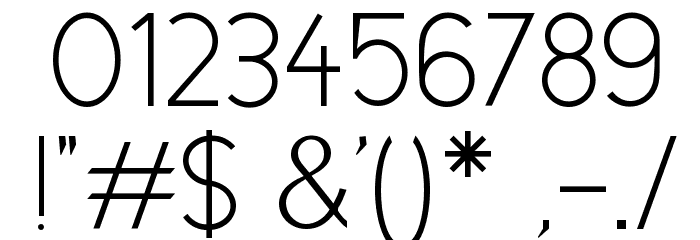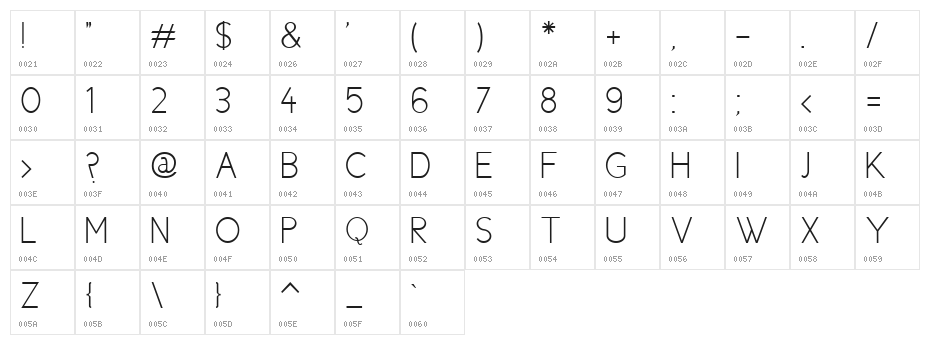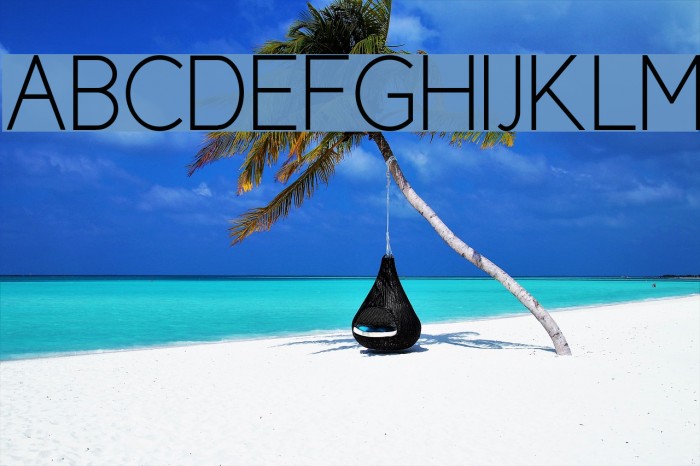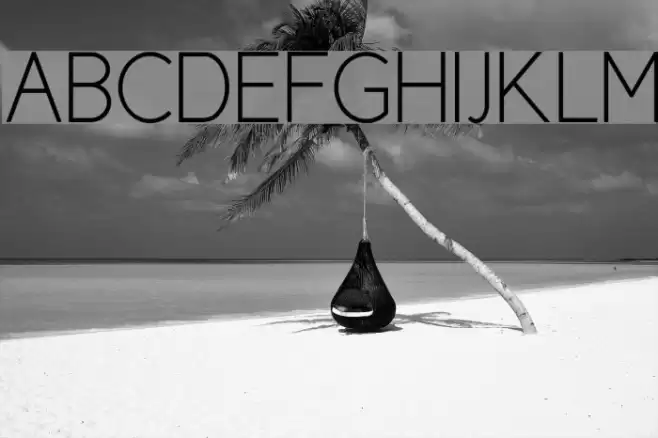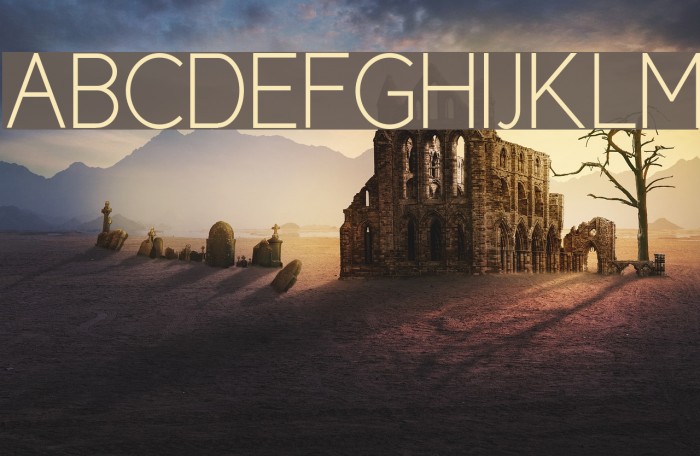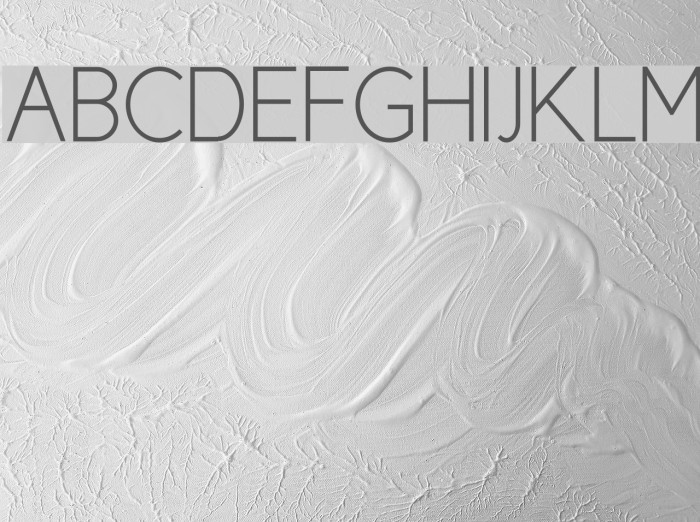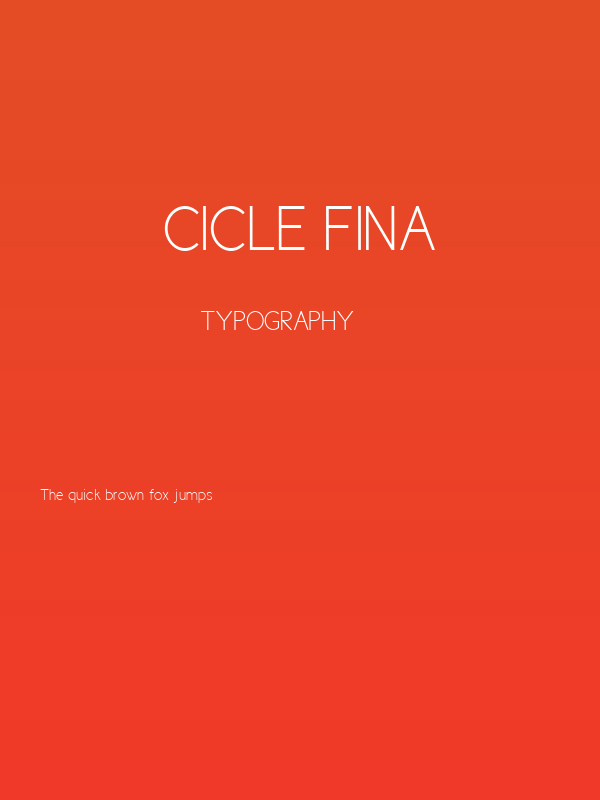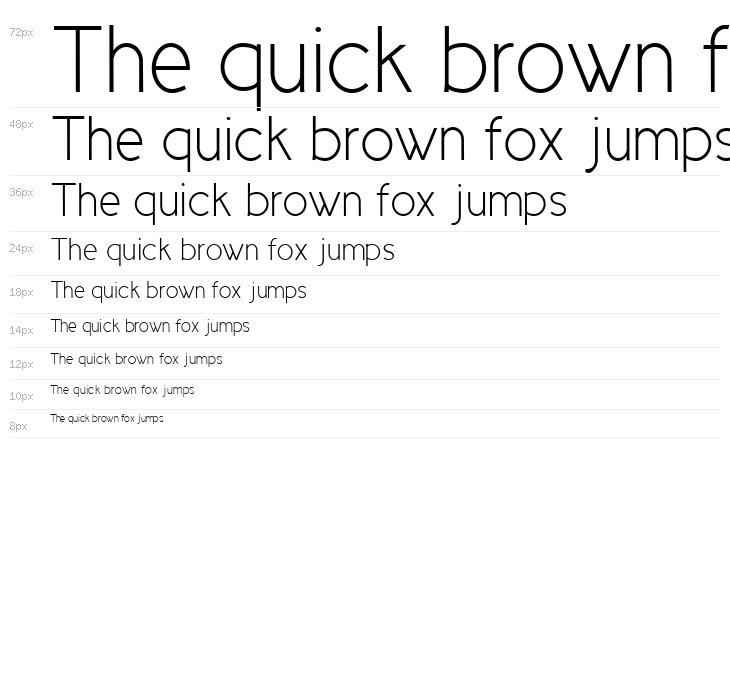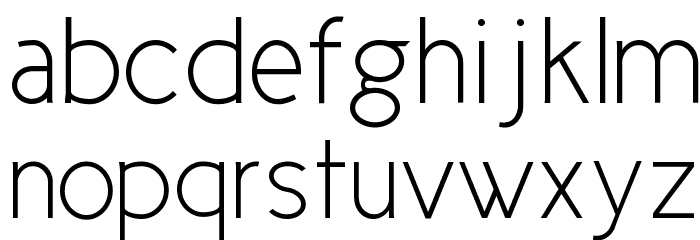
Cicle Fina Font
Cicle Fina Description
This font features a clean and modern design with a geometric sans-serif style. The characters are sleek and minimalistic, offering a contemporary look that is both elegant and functional. The uppercase and lowercase letters maintain a consistent line weight, contributing to a harmonious appearance. The numerals and special characters are designed with the same precision, ensuring readability and versatility across various applications. Its simplicity and clarity make it suitable for a wide range of design projects, from digital interfaces to print media.
| Proposed Projects | Ideal for branding, web design, user interfaces, and editorial layouts. |